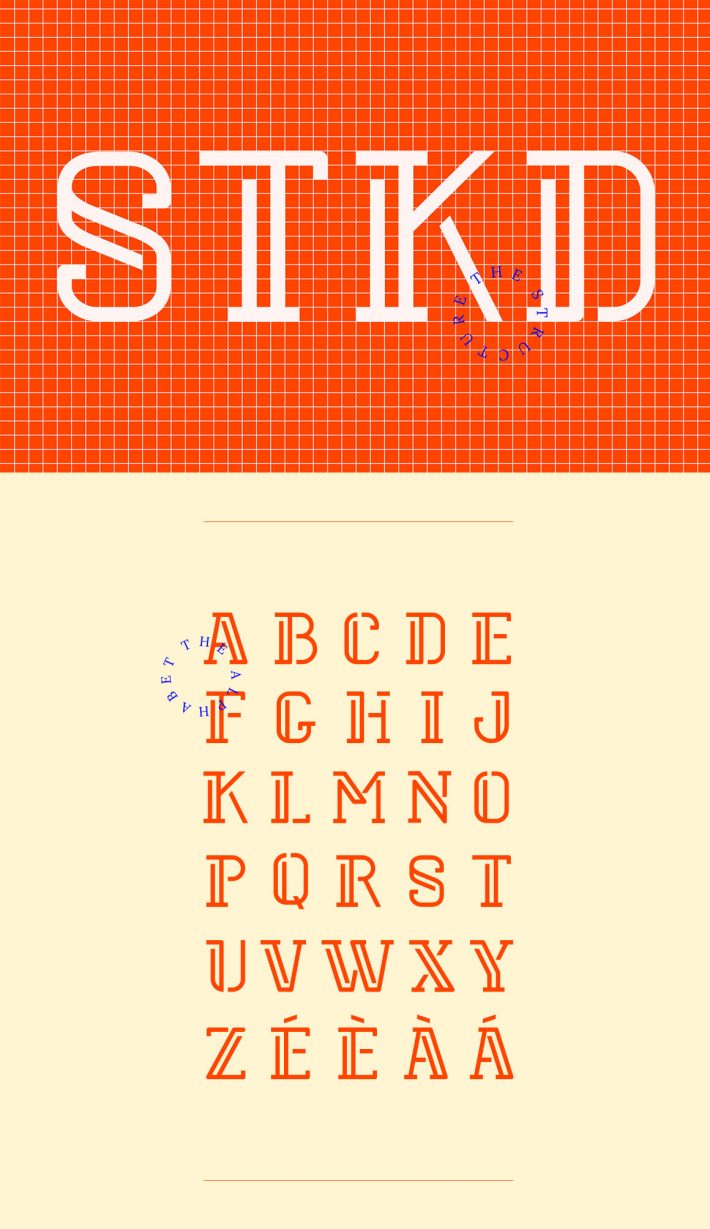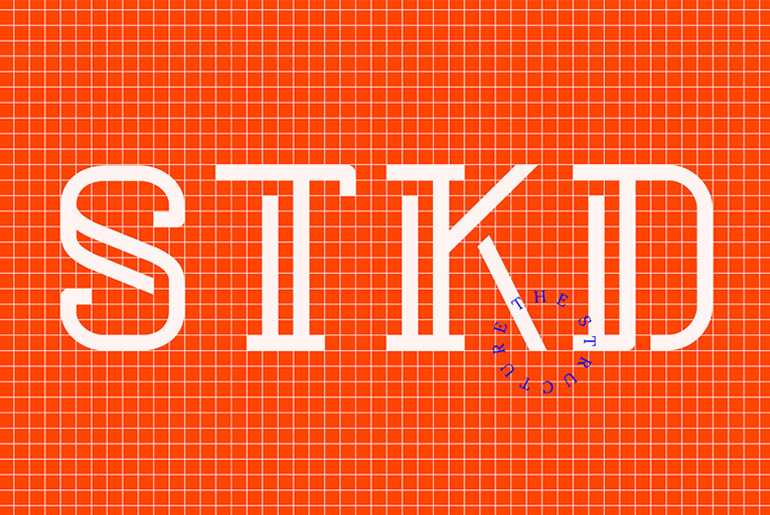
STOKED Free Display Font
stoked font
Stoked is a display font redeem with love from a rejected 5 custom letters logo created by Marie-Michelle Dupuis. Completely sure about life and show that its life wasn’t meant to be forsaken. So cruelly, it was given to 21 other friends of creators. (Free for personal & commercial use).
STOKED Free Display Font